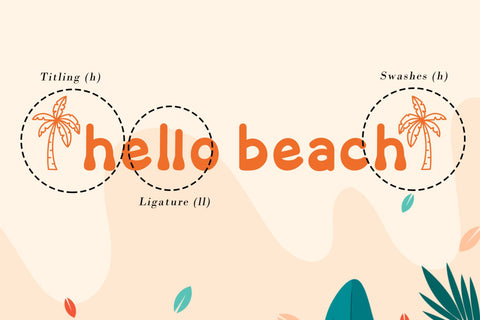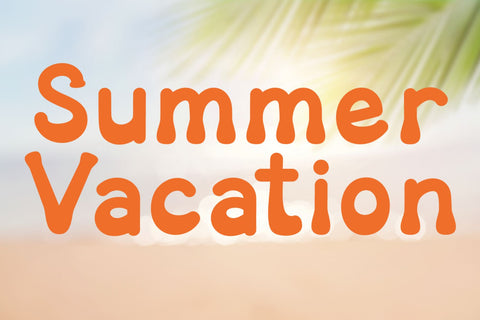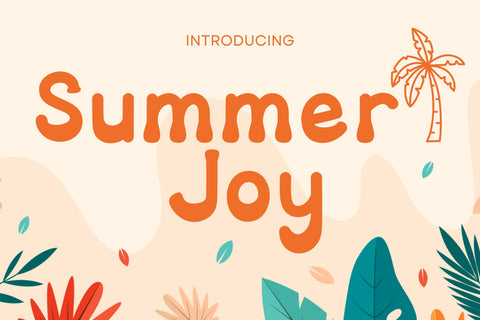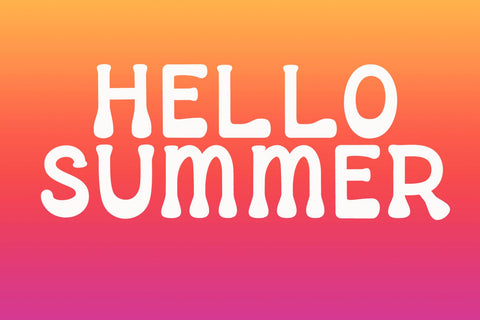
Summer Joy - A Groovy Display Font
Summer Joy is a cute groovy font that will help you enjoy and have fun with your designs. Perfect for creating a wide variety of products such as T-shirts, pillows, banners, mugs, cards, stationery, social media posts, and more!
Summer Joy Features :
- (a-z) titling, (a-z) swashes, ligatures
- Support multilingual; ä ö ü Ä Ö Ü ß ¿ ¡